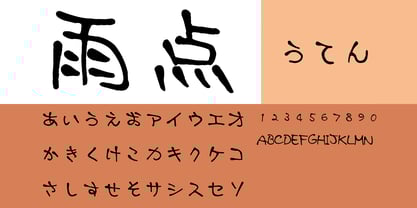
Uten
by MAAR-sha
The Uten Font Family was designed by and published by MAAR-sha. Uten contains 2 styles.
This font is based on the book "Design Calligraphy Series 5: Uten" authored by Ayumi Takase and published by Mahl Co., Ltd., and was digitized into a typeface by Musashi System Co., Ltd.
Featuring the warmth of handwritten characters, this typeface is versatile and suitable for various applications such as posters, menus, and doujinshi covers.